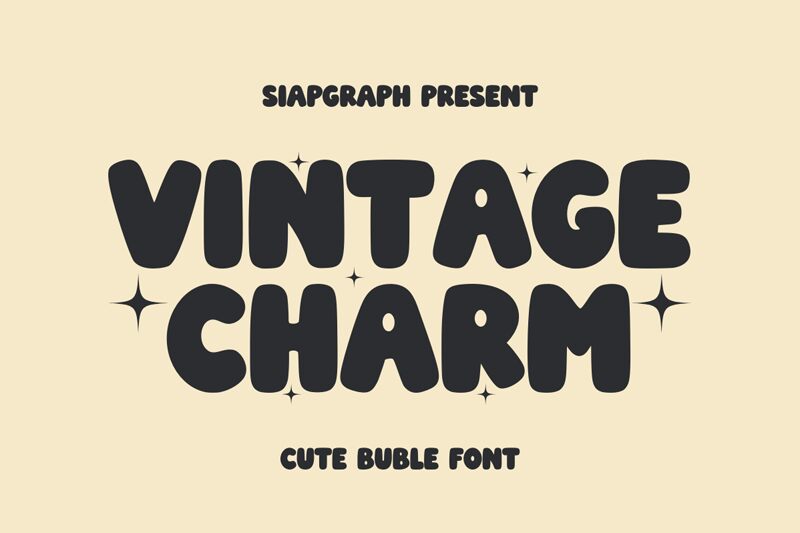
Vintage Charm font by Siapgraph is a free cartoon font with a bubble-like style. The single-style typeface presents laid-back and informal vibes with its retro-inspired rounded letter design. The character structure is friendly and inviting which readers easily relate to and find entertaining. All these elements combined with a touch of nostalgia contribute to the font’s overall youthful and playful essence.
The decorative font is most suited for kids and party invitations, birthday greeting cards, event posters, flyers, and many other craft projects. Its friendly nature makes it a great choice for educational purposes and schools. It can also be used in the production and development of entertaining video games, mobile apps, and even cartoons. Logos, illustrations, and social media templates all fit under the font’s scope of use.